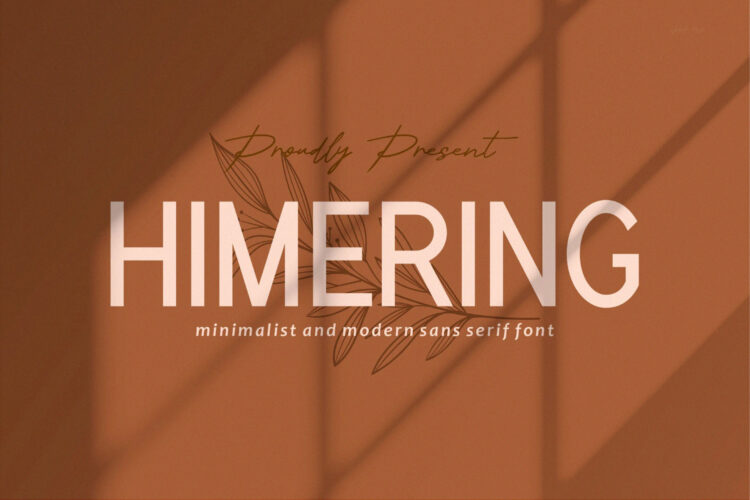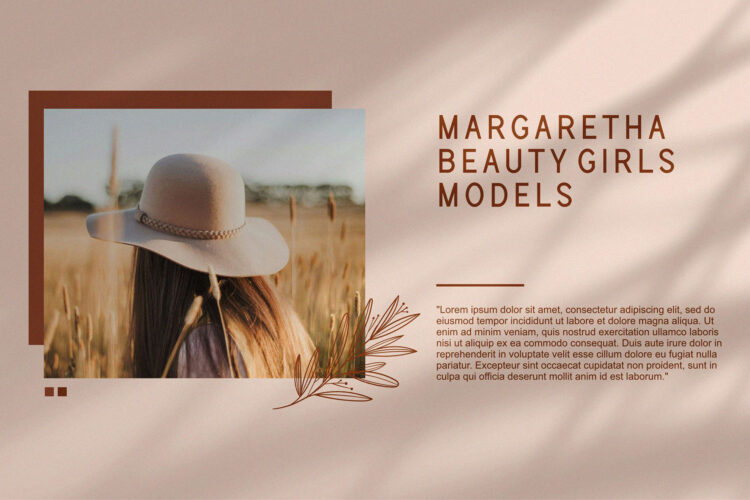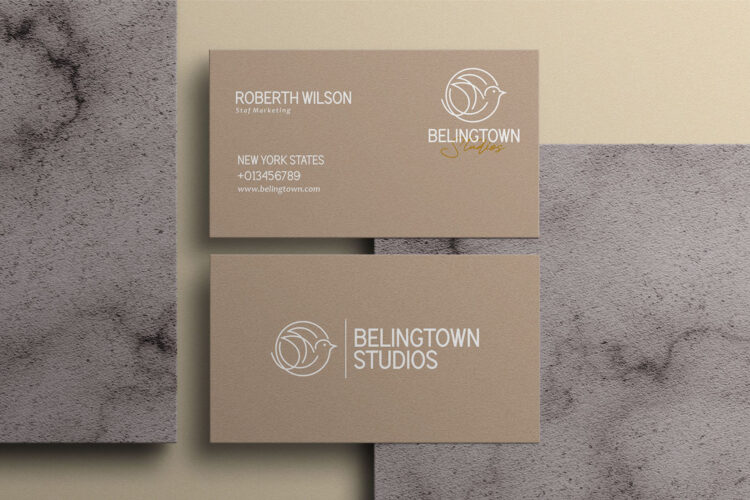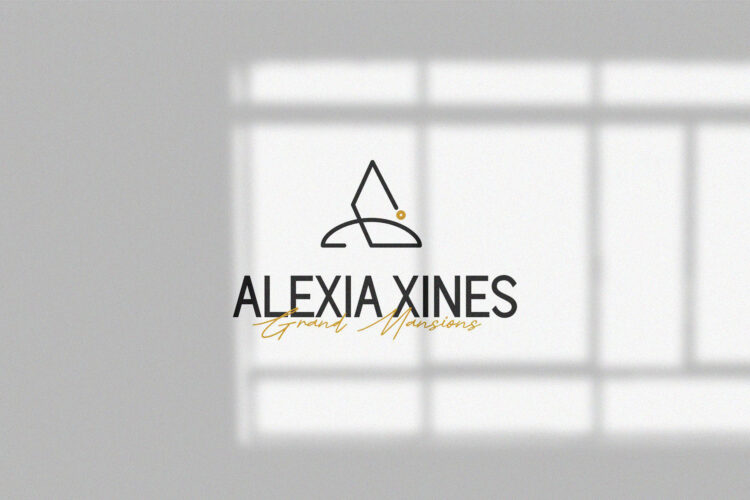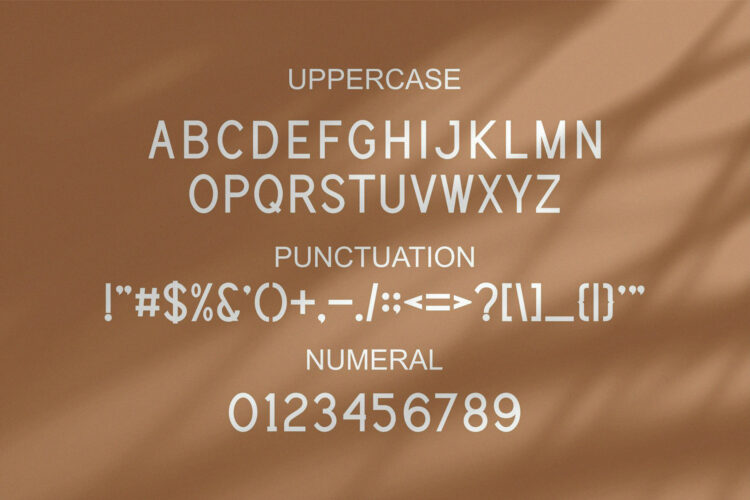
Introducing our new Himering, modern sans serif font with elegant style this is perfect for branding, logos, invitation, magazines, product packaging and more.
Himering – Minimalist & Modern Sans Serif